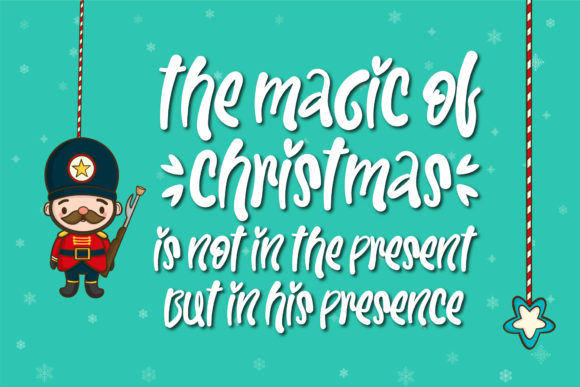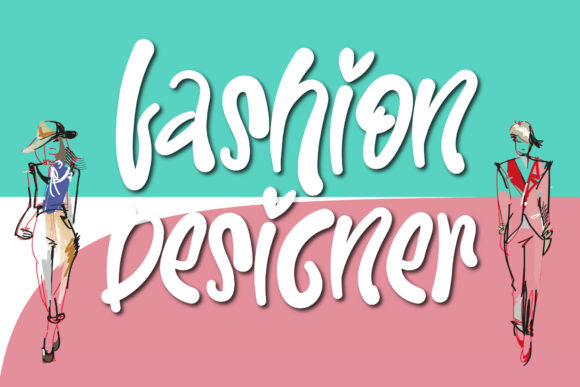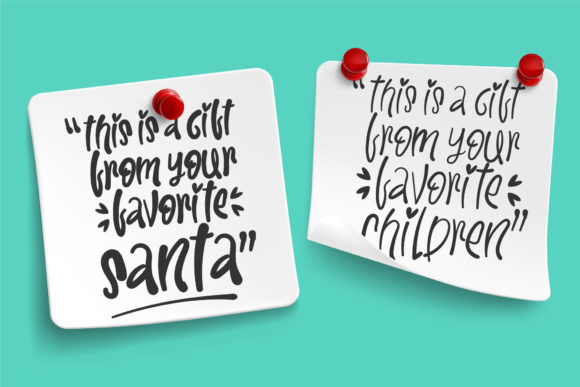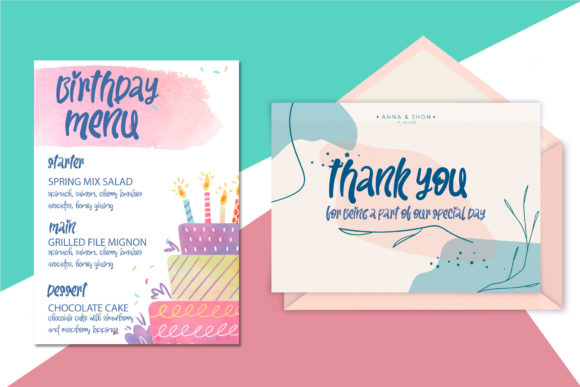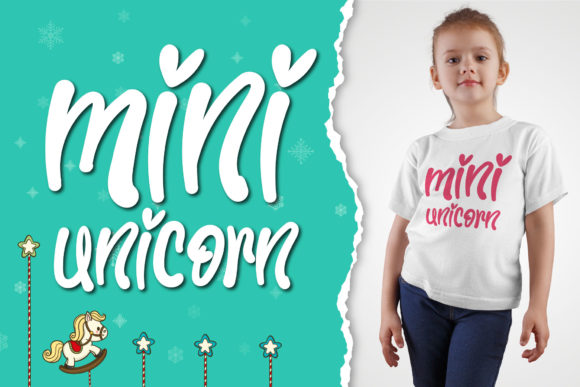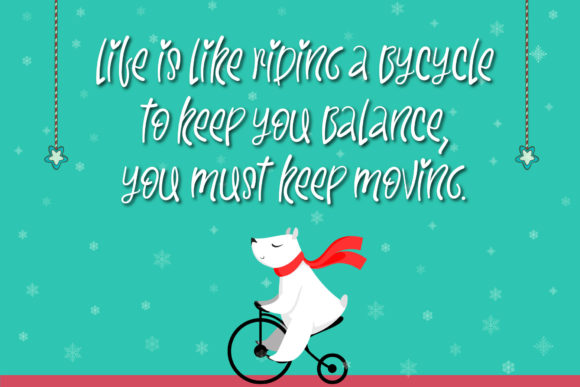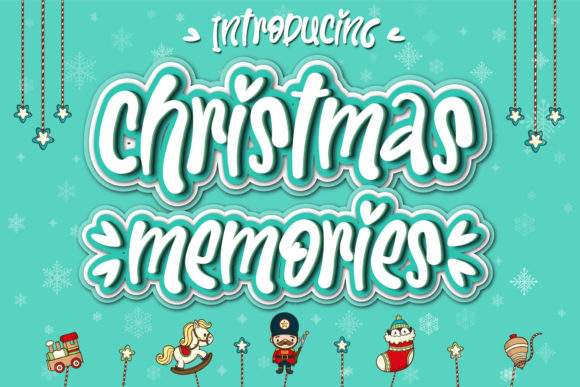
Christmas Memories Font: A Beautiful Script Font for Your Holiday Designs
Are you looking for a font that captures the essence of the holiday season? Do you want to add a touch of elegance and sophistication to your Christmas designs? Look no further than Christmas Memories Font, a beautiful, well-balanced, and stylish script font that’s perfect for fashion branding, editorial designs, and holiday crafts.
What Makes Christmas Memories Font So Special?
Christmas Memories Font is defined by its smooth curves and flowing lines, giving it a luxurious and refined feel. This font is designed to evoke the nostalgia and warmth of the holiday season, making it perfect for creating festive and eye-catching designs. Whether you’re a designer, crafter, or DIY enthusiast, Christmas Memories Font is sure to become your go-to font for all your holiday projects.
Key Features of Christmas Memories Font
- Smooth Curves: Christmas Memories Font features smooth, flowing curves that give it a elegant and sophisticated feel.
- Well-Balanced: The font is carefully crafted to ensure that it’s well-balanced and visually appealing, making it perfect for use in a variety of design applications.
- Stylish Script: Christmas Memories Font is a script font with a stylish and refined feel, perfect for adding a touch of luxury to your designs.
- Fashion Branding: This font is perfect for fashion branding, allowing you to create elegant and sophisticated designs that showcase your brand’s personality.
- Editorial Designs: Christmas Memories Font is also ideal for editorial designs, such as magazines, blogs, and newspapers, where a touch of elegance and sophistication is required.
How to Use Christmas Memories Font in Your Designs
Using Christmas Memories Font in your designs is easy and straightforward. Here are a few tips to get you started:
- Pair it with Other Fonts: Christmas Memories Font pairs well with other fonts, such as sans-serif fonts, to create a visually appealing contrast.
- Use it for Headings: This font is perfect for use in headings, titles, and subtitles, where a touch of elegance and sophistication is required.
- Add it to Your Digital Crafts: Christmas Memories Font is perfect for digital crafts, such as printable art, planners, and journals, where a personal touch is required.
Why Designers and Crafters Love Christmas Memories Font
Designers and crafters love Christmas Memories Font for its versatility, elegance, and sophistication. Here are a few reasons why:
- Easy to Read: Christmas Memories Font is easy to read, even at small sizes, making it perfect for use in a variety of design applications.
- Highly Versatile: This font is highly versatile and can be used in a variety of design applications, from fashion branding to editorial designs.
- Unique and Distinctive: Christmas Memories Font has a unique and distinctive feel that sets it apart from other fonts, making it perfect for designers and crafters who want to stand out from the crowd.